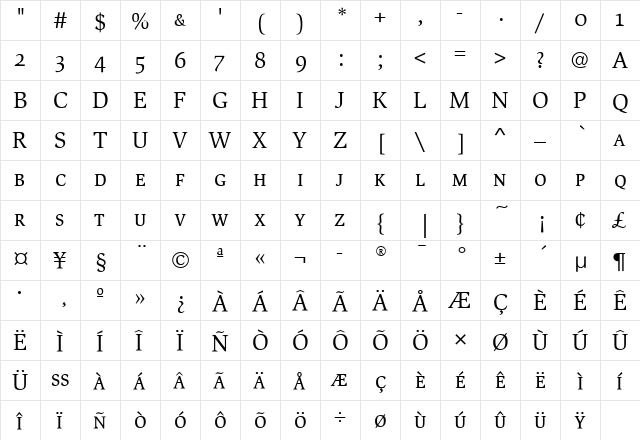
SlimbachSCITC Book Font Preview
SlimbachSCITC Book
Design Context for SlimbachSCITC Typeface
SlimbachSCITC takes a measured approach to typography — its balanced proportions and neutral character make it a reliable workhorse for both digital and print work.